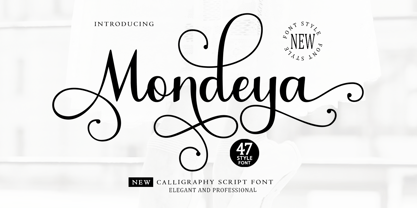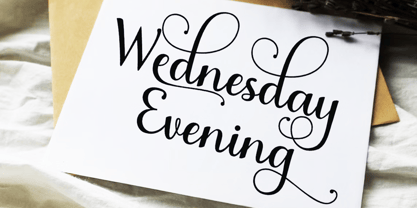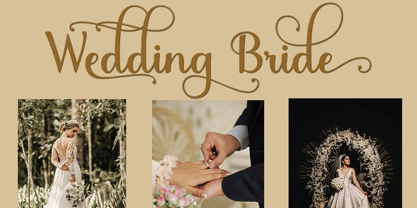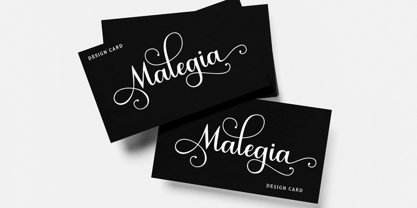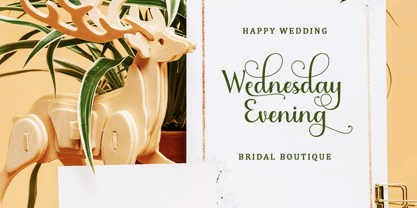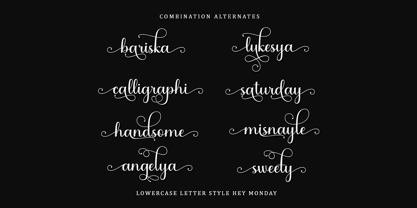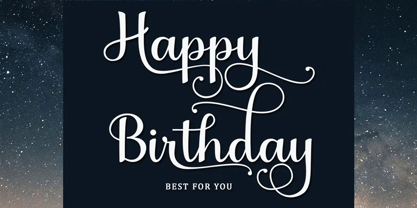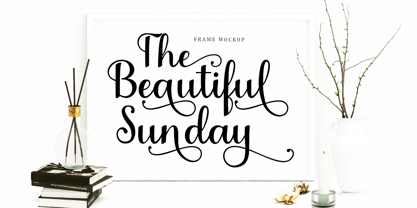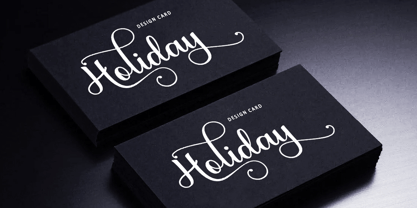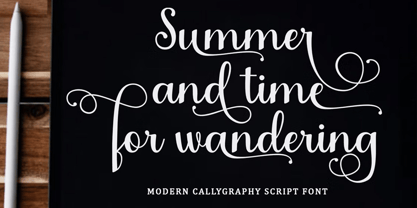
Mondeya
Die Schriftfamilie Mondeya wurde von Muhammad Nazar entworfen und von Bungletter veröffentlicht. Mondeya enthält 25 Stile. Mehr über diese Familie
Mondeya Family Script Font Collection is a collection of 47beautifully designed fonts with a modern and elegant touch, exuding elegance.
Mondeya font is sleek, clean, feminine, sensual, glamorous, simple, and highly readable thanks to its many beautiful letter connections. I also offer several stylistic alternatives for some of the letters. This elegant style is perfect for use in a variety of formal applications such as invitations, labels, restaurant menus, logos, fashion, makeup, stationery, novels, magazines, books, greeting/wedding cards, packaging, labels, or any type of advertising use.
Contains 47 New Font Types:
Contains the complete set:
Uppercase
Lowercase
Alternatives / Styles
Numbers
Multilingual support.